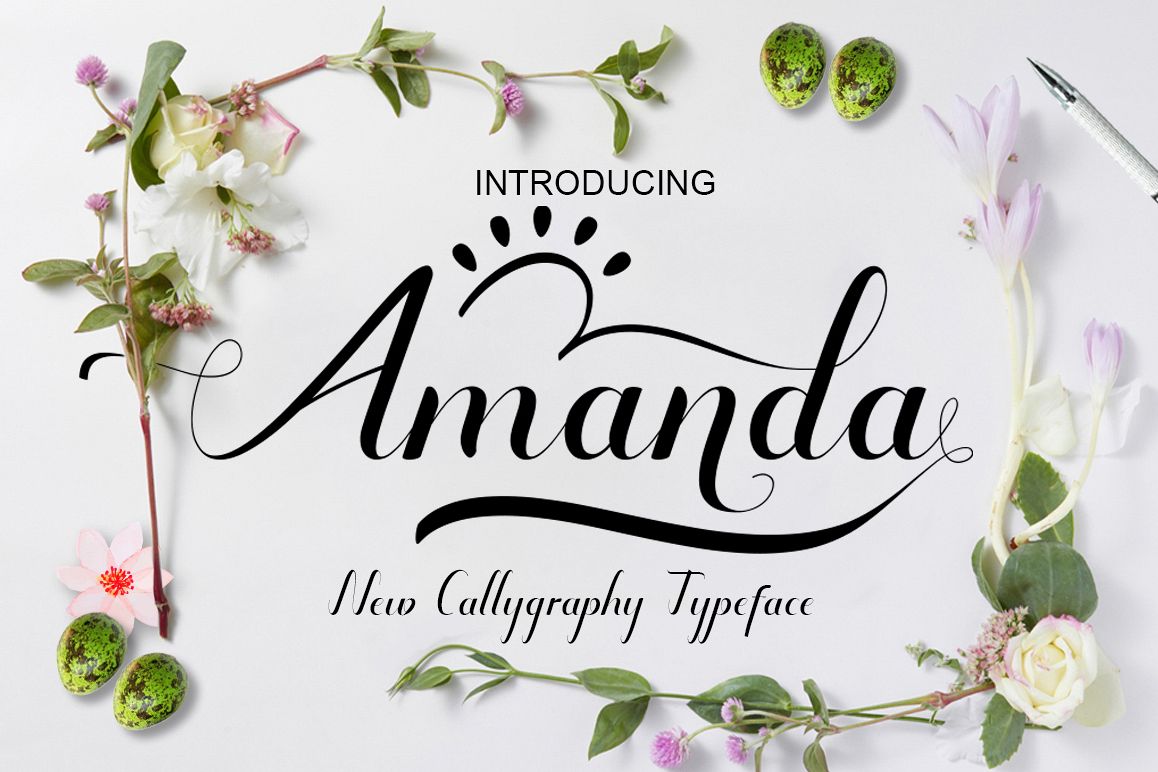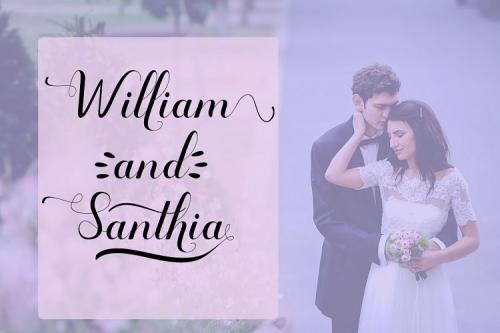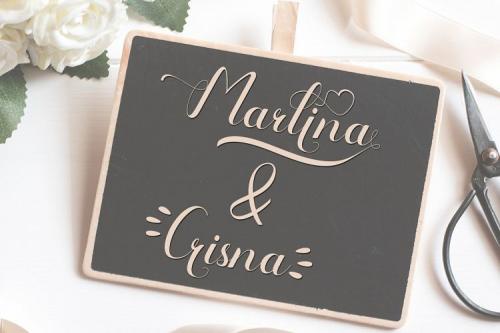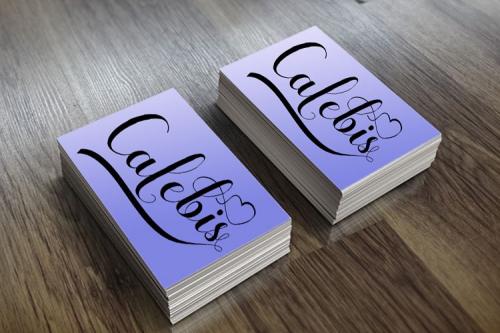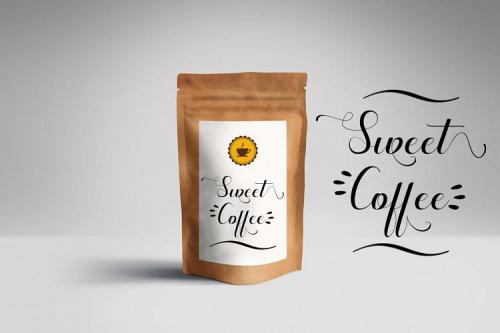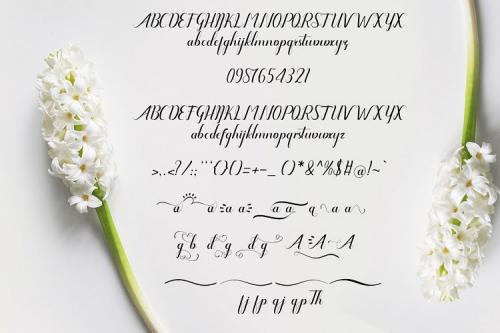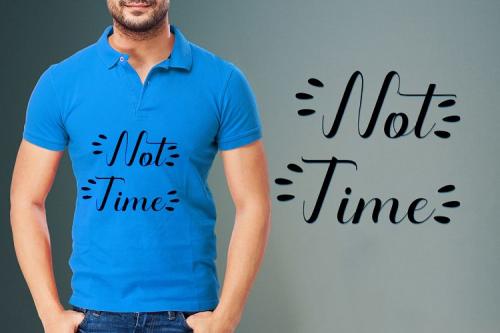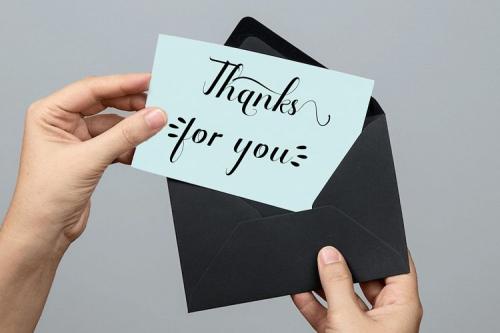
Amanda Script New fresh & modern style with handmade calligraphy, decorative characters and dancing lineage, designed by Art Design! So wonderful are invitations like greeting cards, branding material, business cards, quotes, posters, and more !!